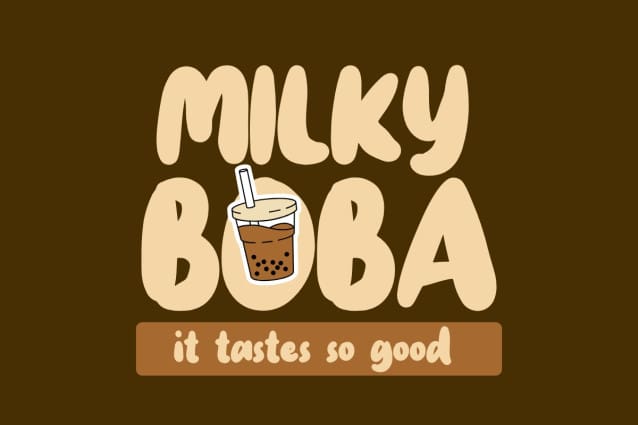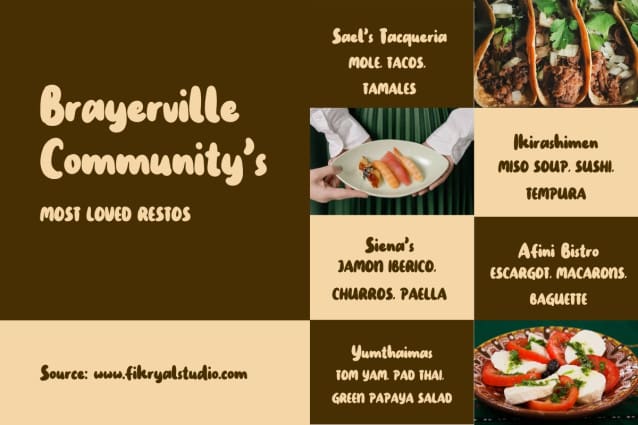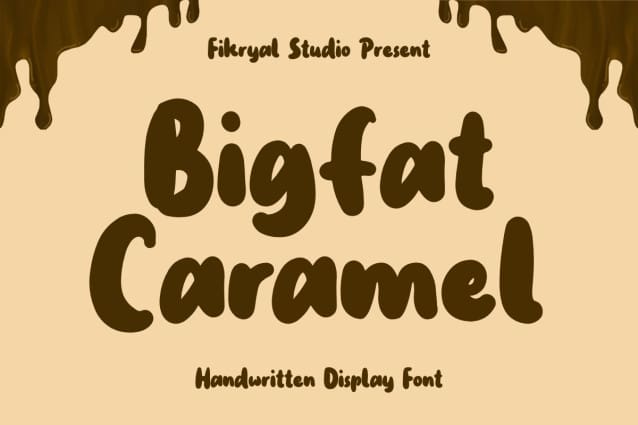
Bigfat Caramel Font
Bigfat Caramel Font is a handwritten display font that features cute and friendly characters. Each letter is designed with a natural touch, giving it a casual yet bold appearance. With its expressive, bold lines, this font is perfect for design projects that aim to evoke a cheerful and warm impression, such as food product branding, packaging, posters, or social media. Bigfat Caramel adds an inviting and playful vibe, making it ideal for designs that prioritize fun, personality, and a friendly feel.